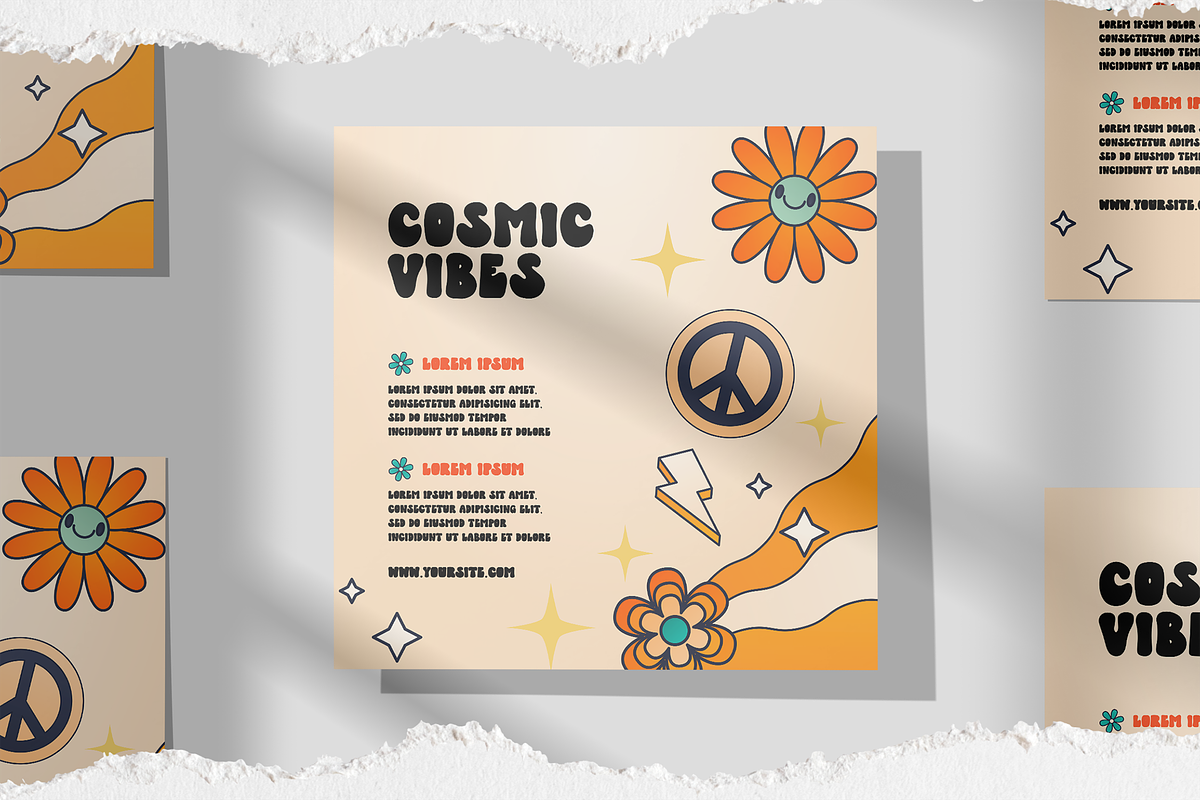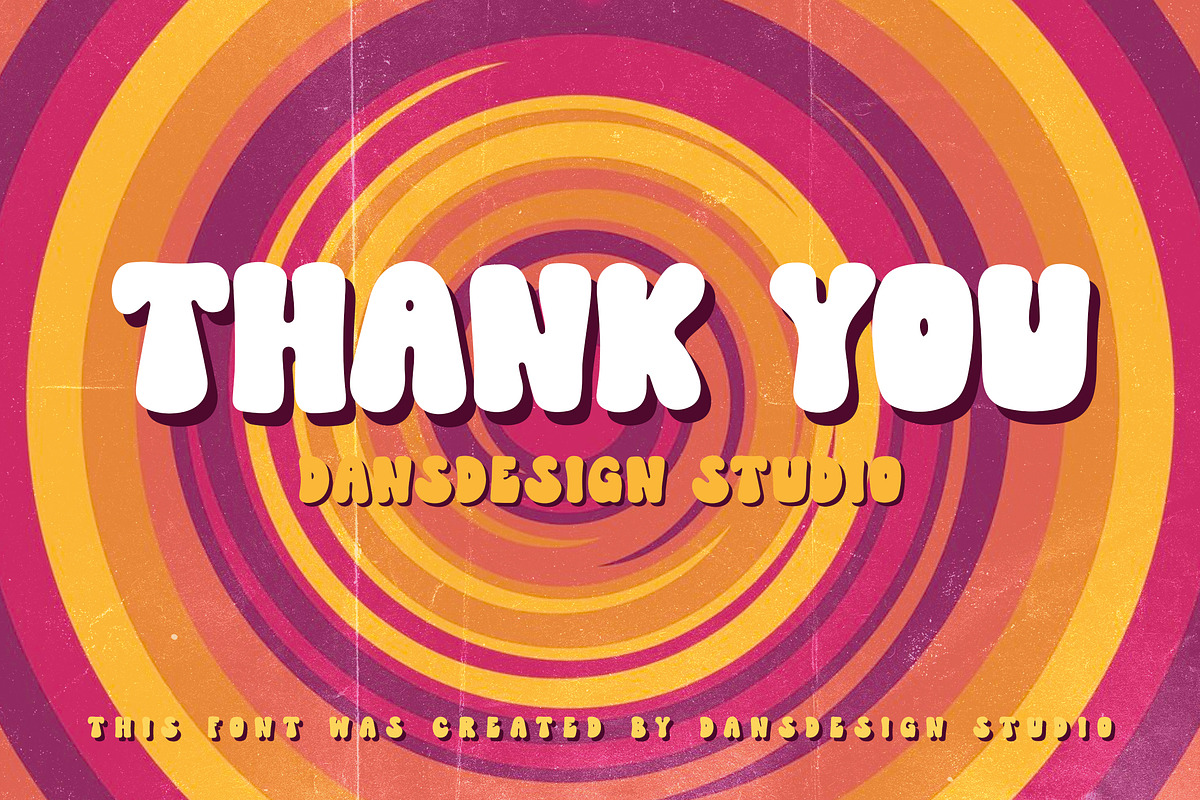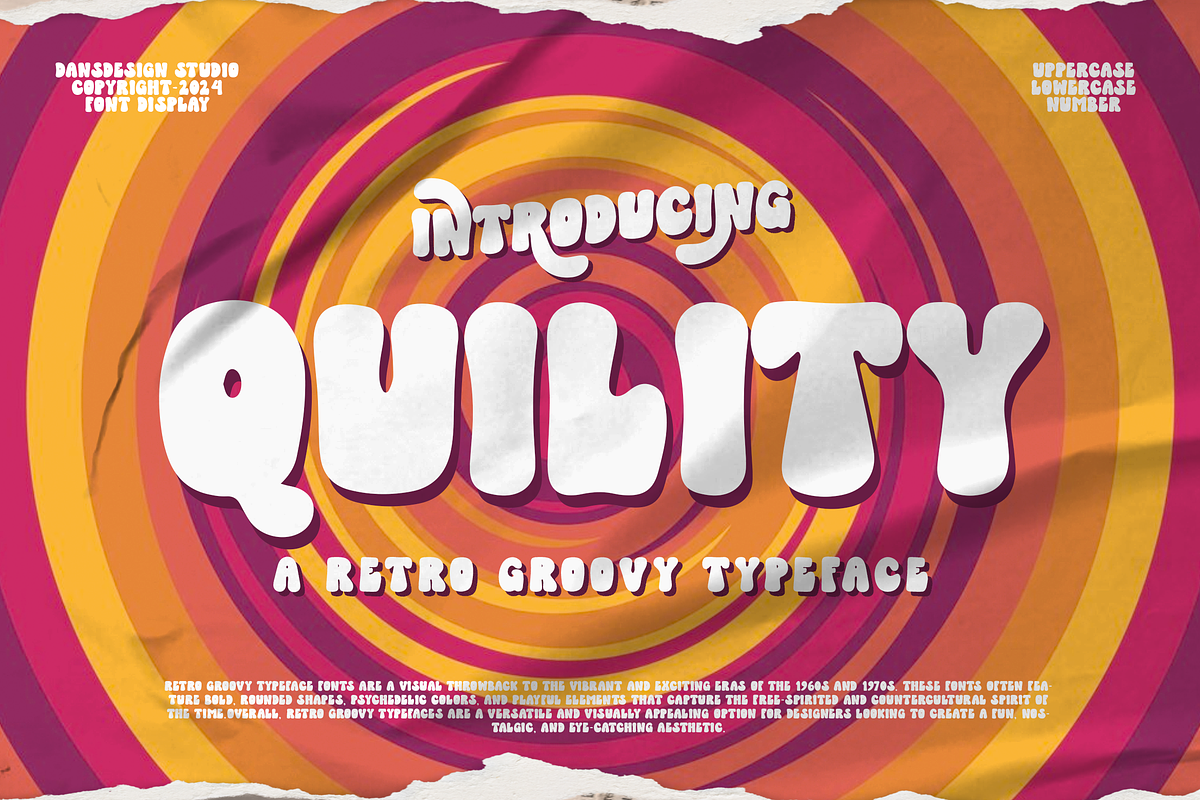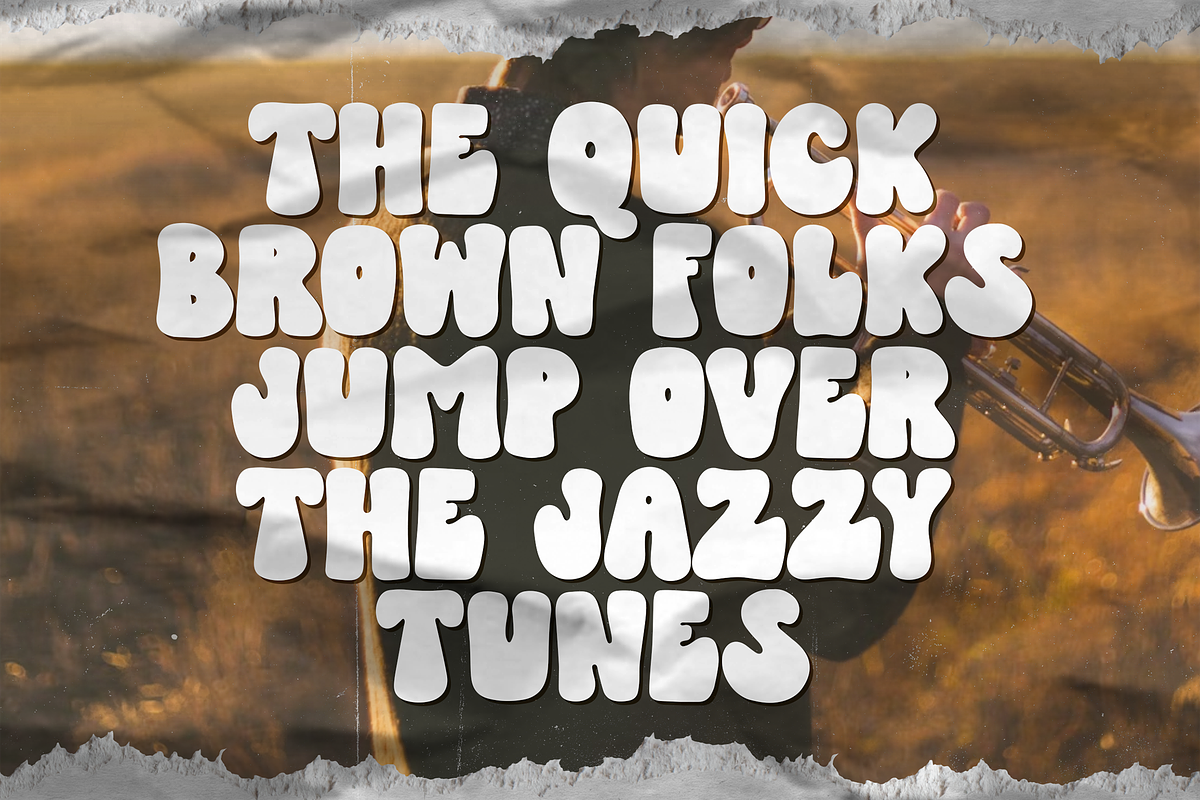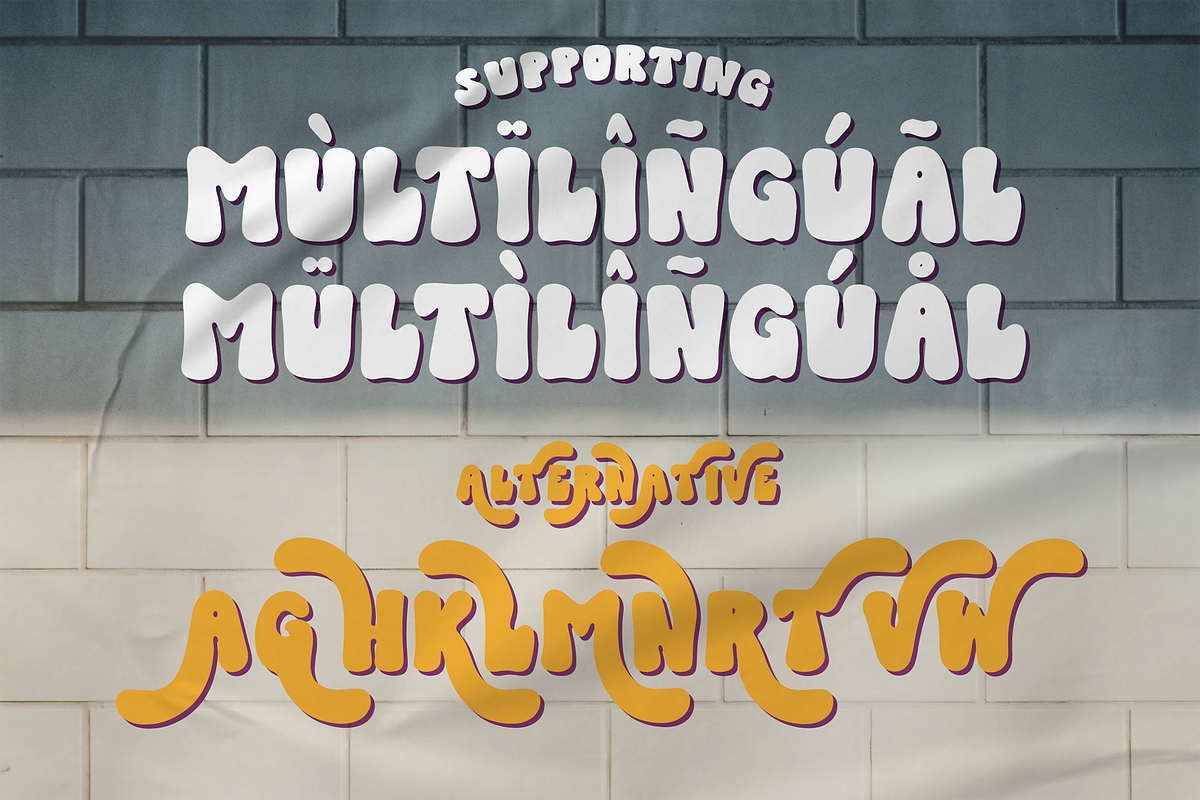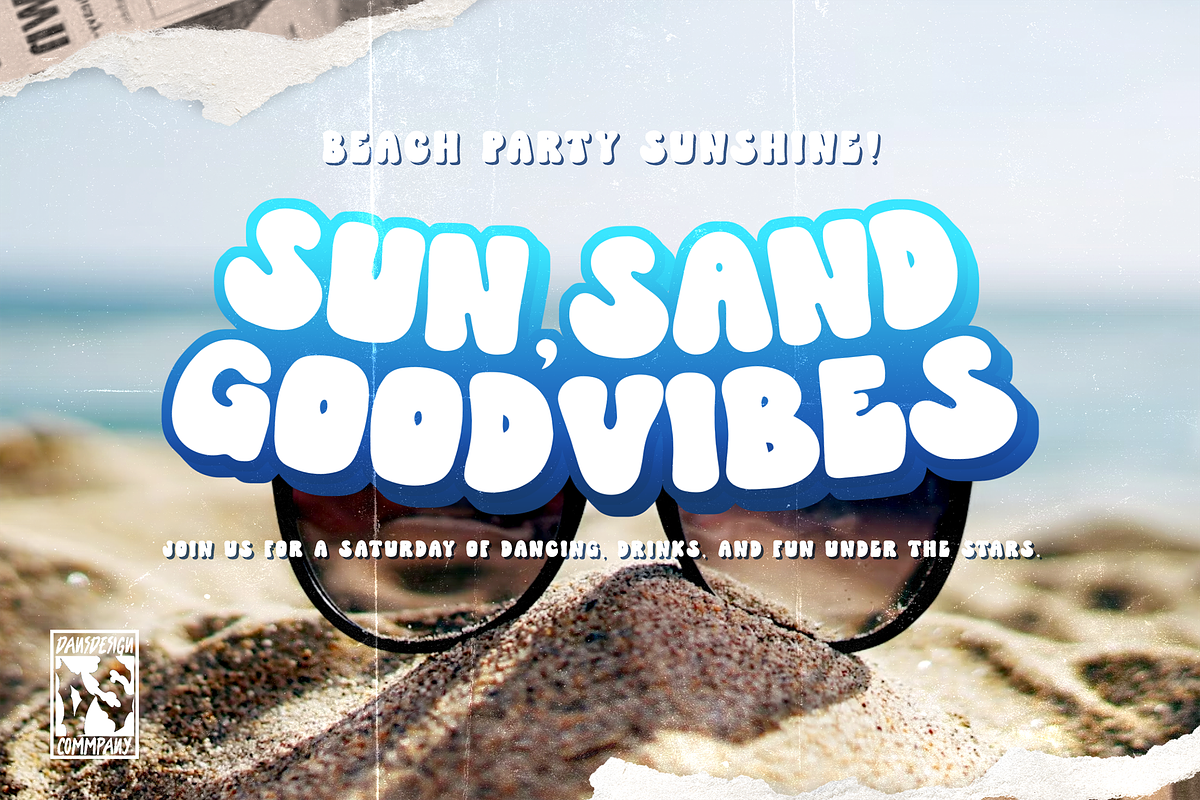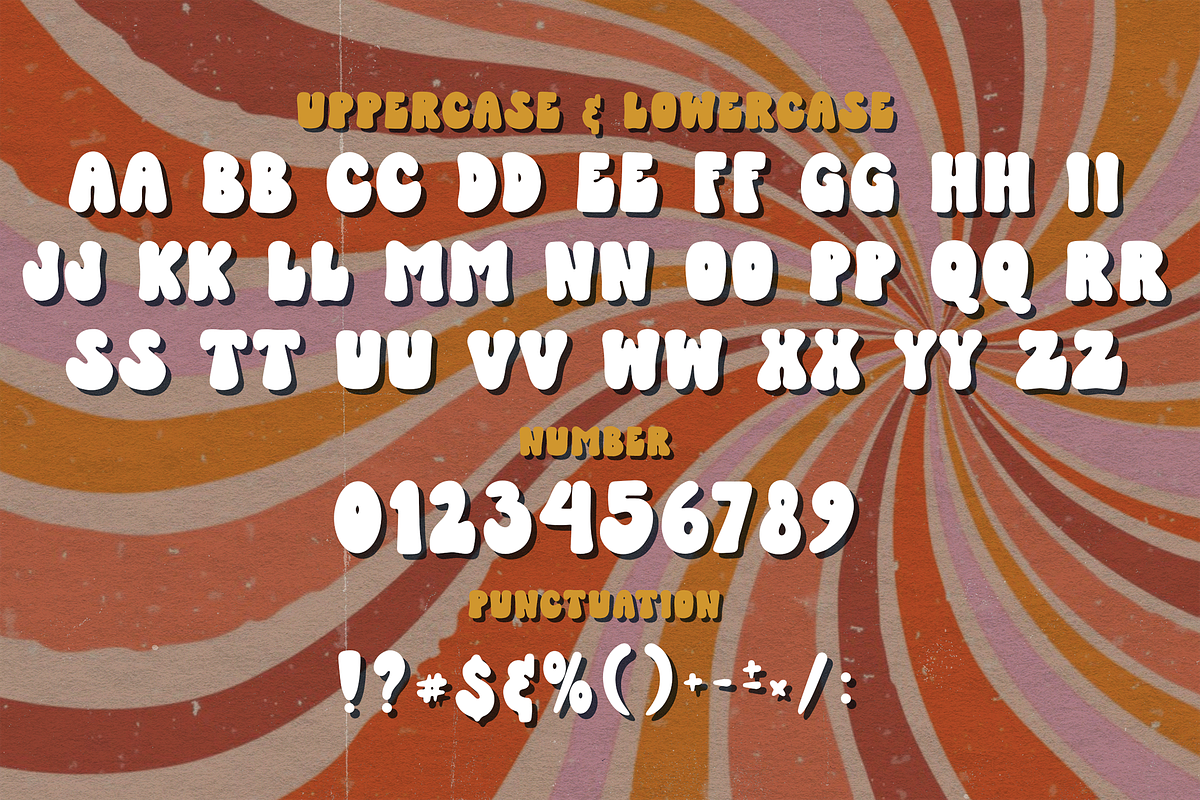
Qulity Bubble Groovy Graffiti Y2K Fo
Qulity Bubble Groovy Graffiti Y2K Font is a distinct, highly detailed Groovy GRAFFITI Y2k Display Font. It would make a great choice for exquisite retro-urban designs, business branding, logos, Apparel designs, and more.
Featured : Accents (Multilingual characters) PUA encoded Numerals and Punctuation (OpenType Standard)